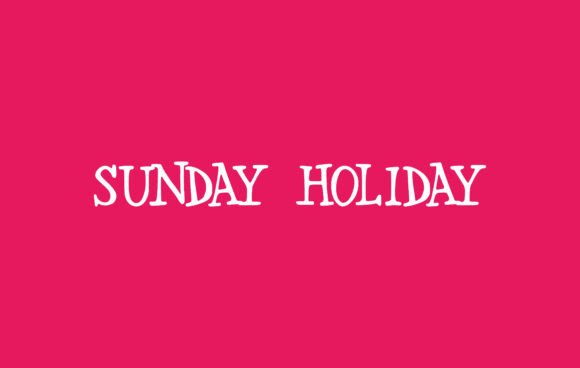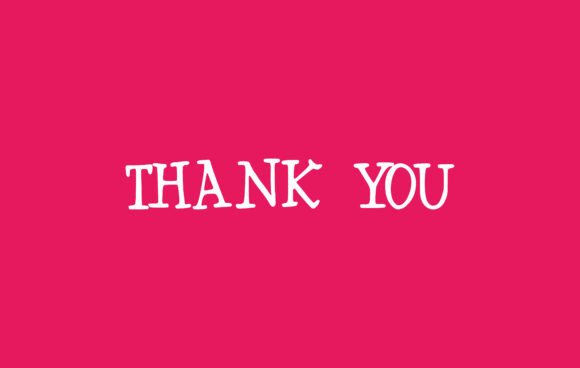
Where Creativity Meets Heartfelt Design
Have you ever been brainstorming ideas for a project and suddenly, a spark of inspiration hits you? You envision the perfect font, one that captures the essence of your creative vision and leaves a lasting impression. For designers, finding that perfect font can be a game-changer. That’s where the Bright Heart Font comes in – an authentic handwritten font with a romantic touch that’s designed to elevate your creative ideas to new heights.
With its legibility and versatility, the Bright Heart Font is perfect for a wide range of designs, from magazine headlines to social media posts, branding, and even wedding invitations. Its unique charm and character make it a valuable addition to any designer’s toolkit, allowing them to create stunning visuals that leave a lasting impression. Whether you’re a seasoned pro or just starting out, the Bright Heart Font is sure to be a trusted companion in your creative journey.
Bright Heart Font Key Features
- Unique Characteristics: Bright Heart Font features a unique blend of modern and minimalist design elements, with clean lines, rounded edges, and a vibrant color palette that makes it perfect for creating eye-catching headings and titles.
- Kerning and Ligatures: Bright Heart Font includes advanced kerning and ligature features, ensuring that letters and words flow smoothly together and creating a professional-looking typesetting effect.
Bright Heart Font Review
As a designer, I was excited to dive into the Bright Heart Font and see what it had to offer. Here’s my honest review:
- The Bright Heart Font is incredibly legible, making it perfect for body text and articles.
- The font’s playful and whimsical nature adds a touch of personality to any design, making it great for creative projects.
- The font family is quite comprehensive, with a range of weights and styles to choose from.
- The font is also highly customizable, allowing designers to fine-tune the appearance to suit their needs.
- The Bright Heart Font may not be the best choice for formal or professional projects, as its playful nature may not be taken seriously.
- The font’s quirks and irregularities can make it challenging to use in certain design contexts, such as in small text sizes or in combination with other fonts.
- The font’s weight range may not be extensive enough for some designers’ needs, particularly those who require very light or very heavy weights.
Overall, the Bright Heart Font is a solid choice for designers who want to add a touch of whimsy and personality to their projects. While it may not be the best fit for every design context, its unique charm and customization options make it a great addition to any font library.
The Bright Heart Font is ideal for:
- Creating eye-catching titles and headings.
- Designing inspirational quotes and sayings.
- Developing branding materials for creative businesses.